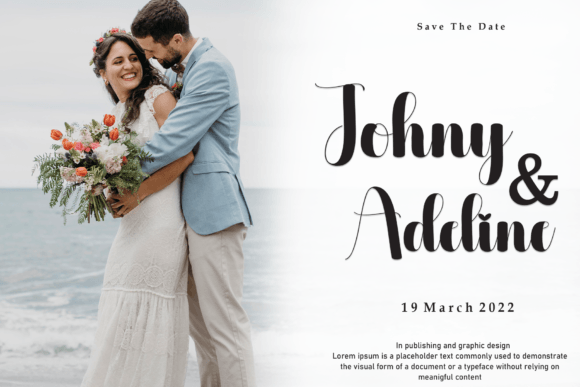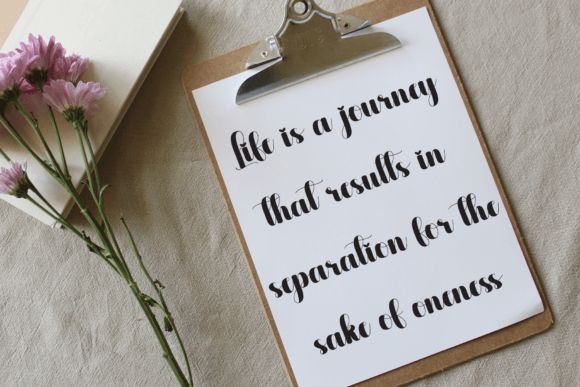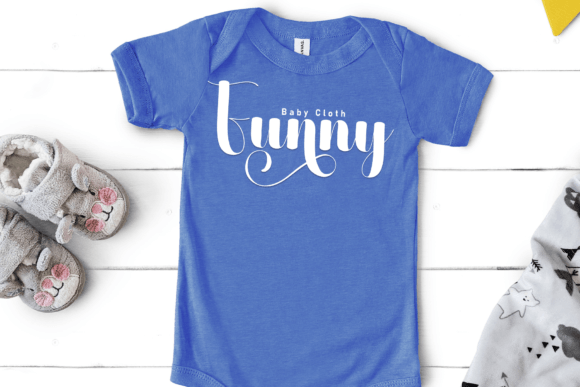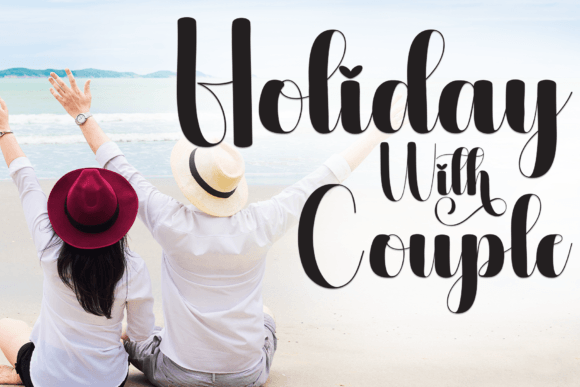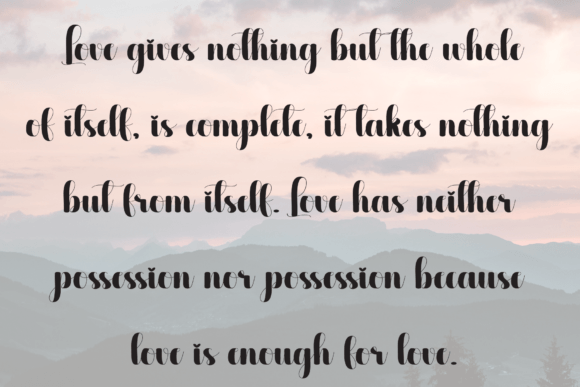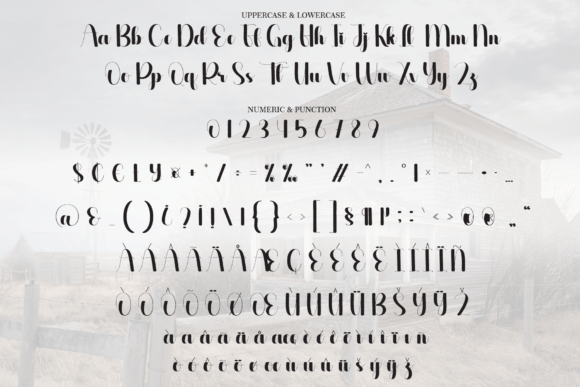
Discover the Charm of Farmhouse Font: Elevate Your Designs with Elegance
Are you on the lookout for a font that adds a touch of elegance and timelessness to your projects? Look no further than the Farmhouse Font, a beautiful, flowing handwritten font that is sure to capture your heart. With its distinct and classic style, Farmhouse Font is the perfect choice for designers and crafters seeking to create spectacular designs that stand out from the crowd.
The Essence of Farmhouse Font
Farmhouse Font is a carefully crafted handwritten font that exudes an air of sophistication and refinement. Its elegant touch is evident in every curve and line, making it an ideal choice for projects that demand a high level of style and poise. Whether you’re working on a branding project, creating invitations, or designing signage, Farmhouse Font is sure to bring a level of class and distinction to your work.
What Makes Farmhouse Font So Special?
So, what sets Farmhouse Font apart from other fonts? Here are a few key features that make it a standout choice:
- Flowing Handwritten Style: Farmhouse Font boasts a beautiful, flowing handwritten style that is both elegant and approachable.
- Elegant Touch: The font’s elegant touch is perfect for projects that require a high level of sophistication and refinement.
- Distinct and Timeless Style: Farmhouse Font’s distinct and timeless style ensures that your designs will remain stylish and relevant for years to come.
- Versatility: This font is incredibly versatile, making it suitable for a wide range of projects, from branding and advertising to crafting and DIY.
Farmhouse Font is a dream come true for designers and crafters seeking to add a touch of elegance to their projects. Whether you’re creating:
- Branding Materials: Use Farmhouse Font to create stunning logos, business cards, and letterheads that reflect your brand’s personality.
- Invitations and Stationery: Add a touch of sophistication to your invitations, wedding stationery, and greeting cards.
- Signage and Displays: Use Farmhouse Font to create eye-catching signage, banners, and displays that grab attention.
- Crafting and DIY Projects: Perfect for crafters, Farmhouse Font can be used to create beautiful journal pages, scrapbooking layouts, and other DIY projects.
Tips for Using Farmhouse Font Effectively
To get the most out of Farmhouse Font, here are a few tips to keep in mind:
- Pair with Complementary Fonts: Pair Farmhouse Font with complementary fonts to create visual interest and add depth to your designs.
- Experiment with Colors: Try out different color schemes to find the perfect combination that complements your design.
- Play with Sizes: Experiment with different font sizes to create visual hierarchy and emphasize key elements.
In conclusion, Farmhouse Font is a stunning, flowing handwritten font that is sure to capture your heart. With its elegant touch, distinct and timeless style, and versatility, it’s the perfect choice for designers and crafters seeking to create spectacular designs. Whether you’re working on a branding project, creating invitations, or designing signage, Farmhouse Font is sure to bring a level of class and distinction to your work. So why wait? Fall in love with Farmhouse Font and elevate your designs to new heights!